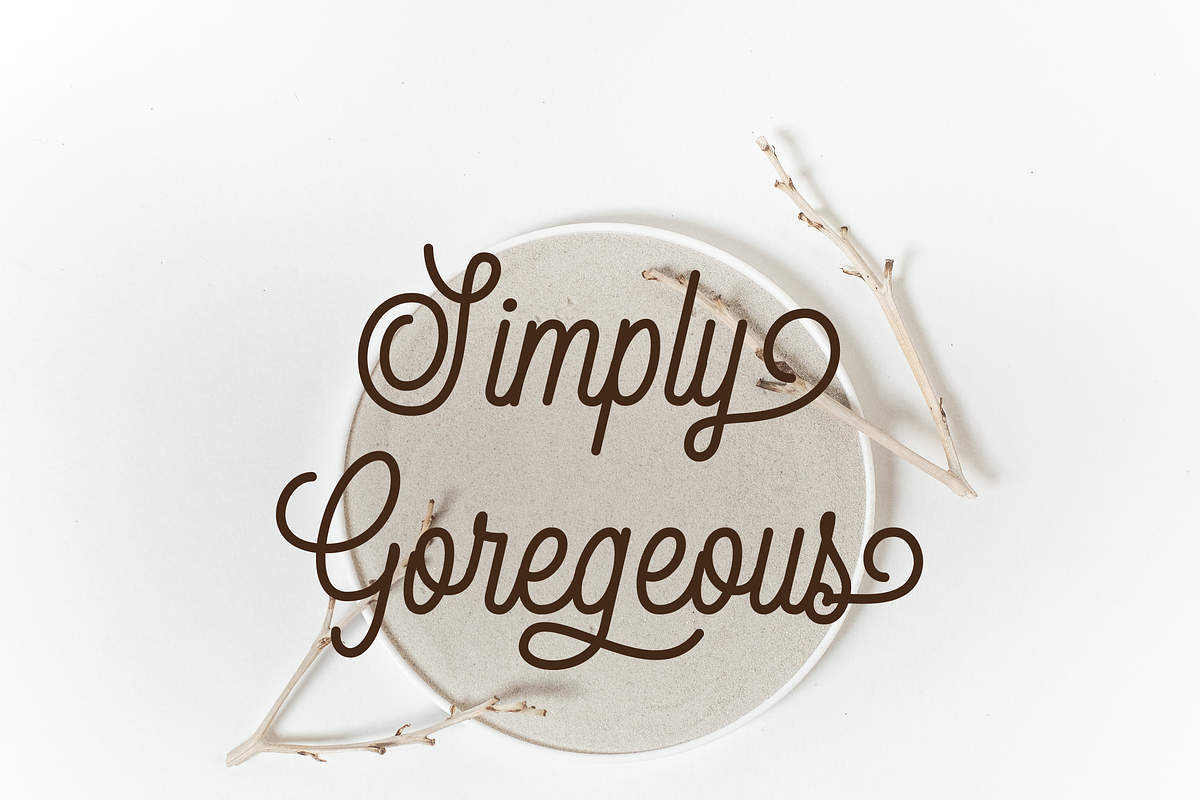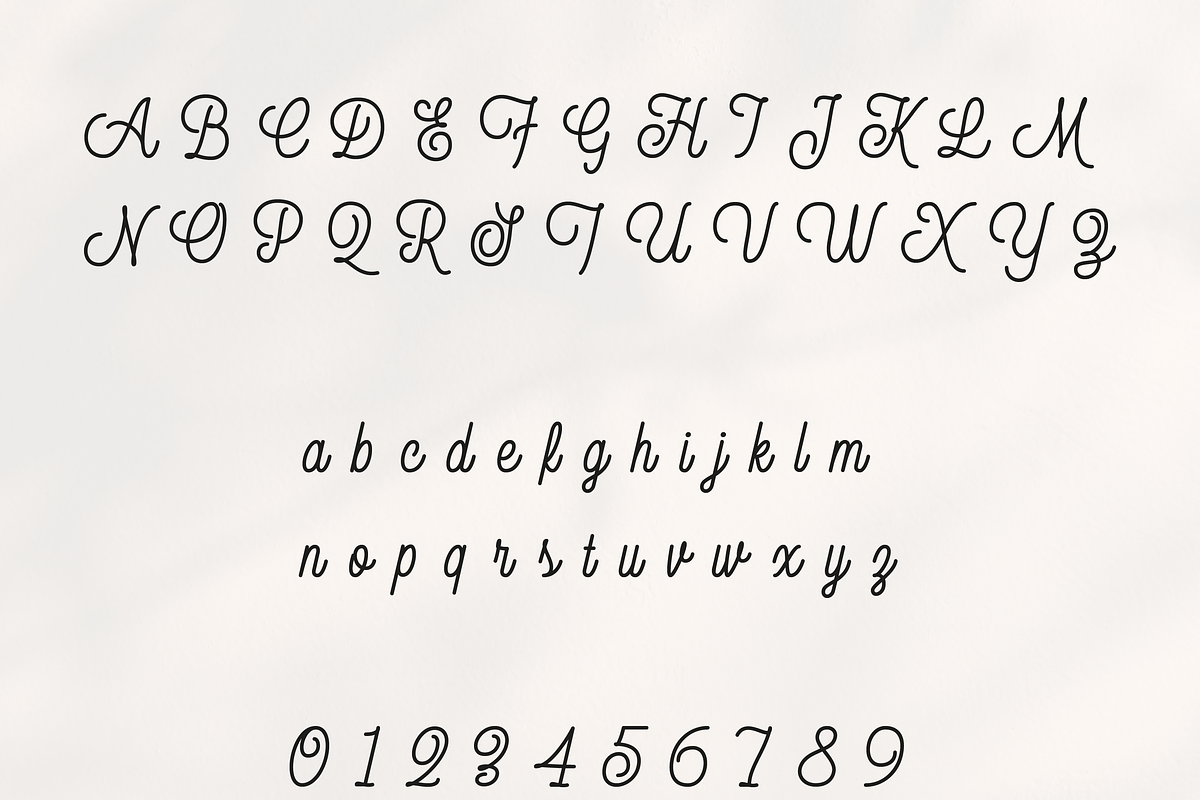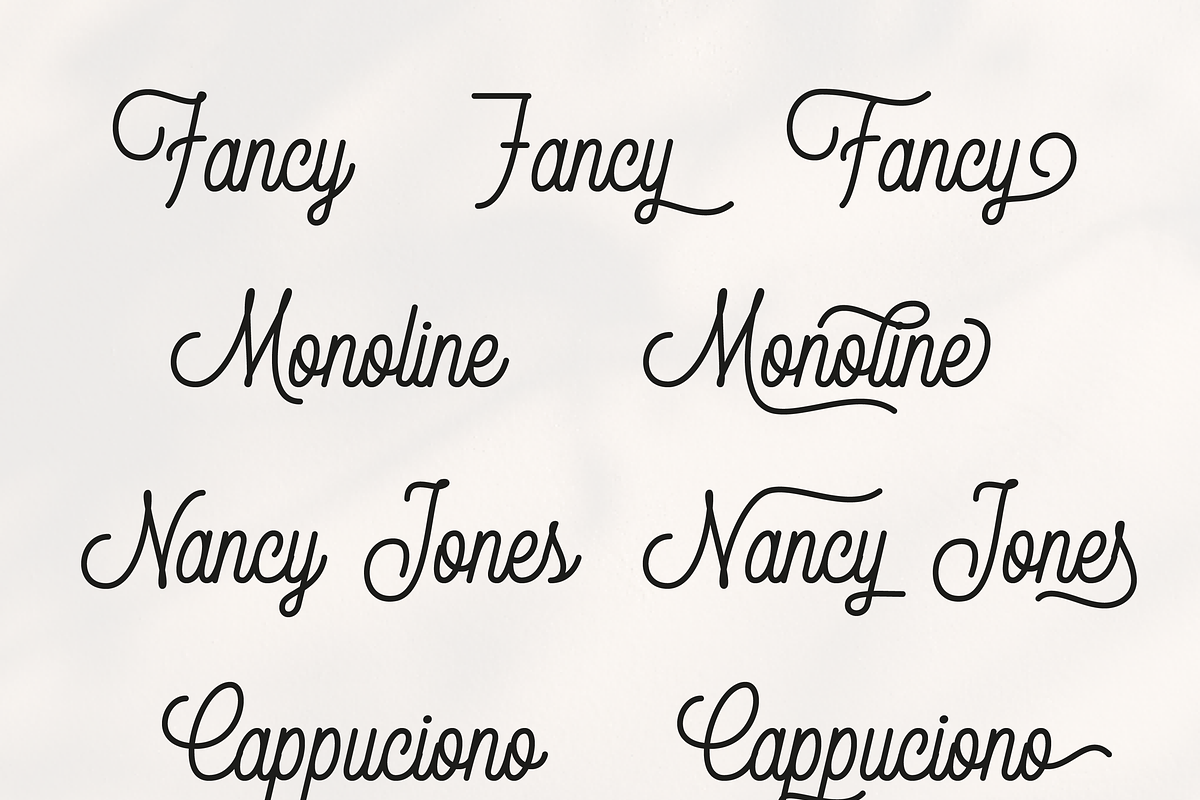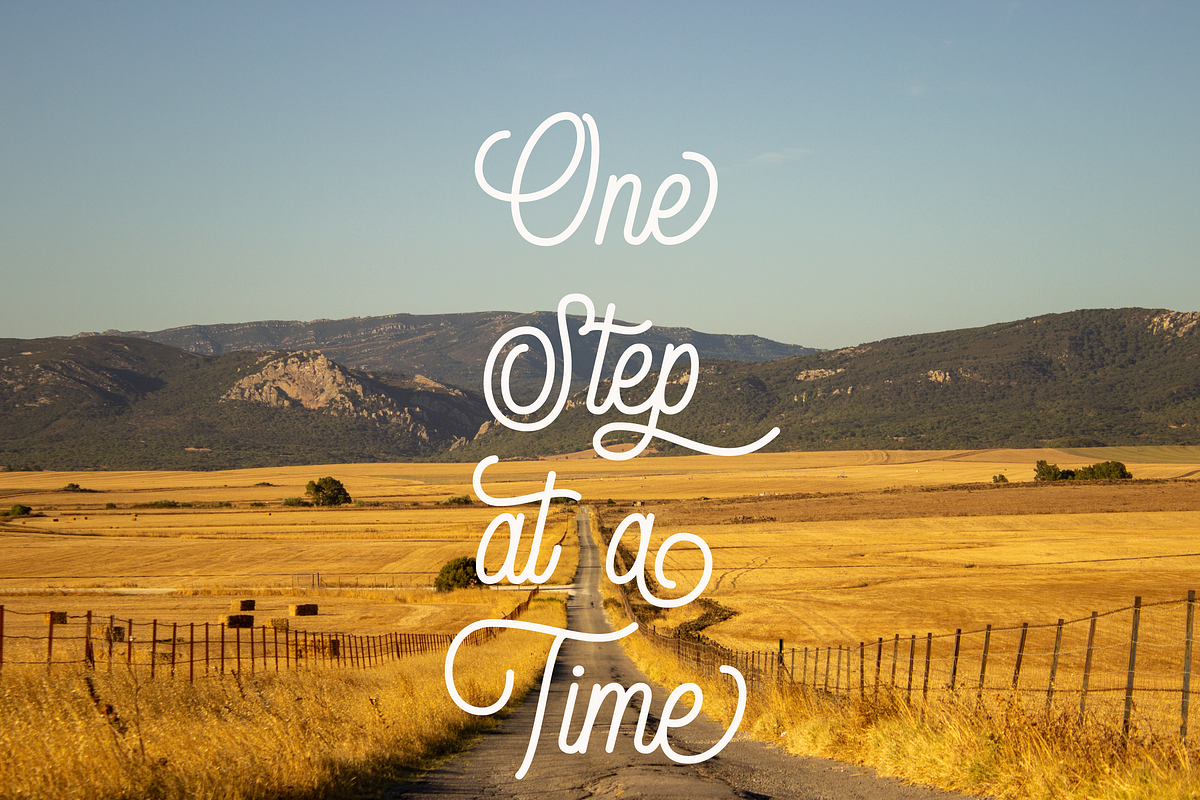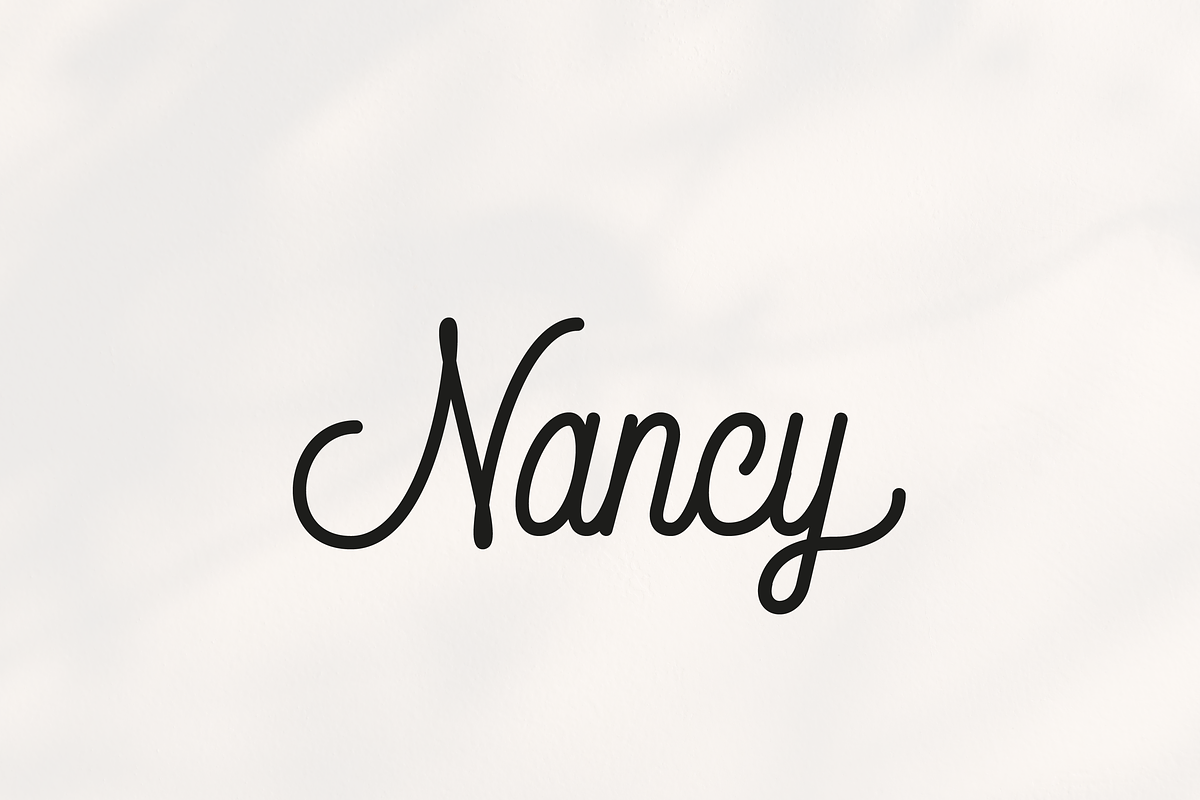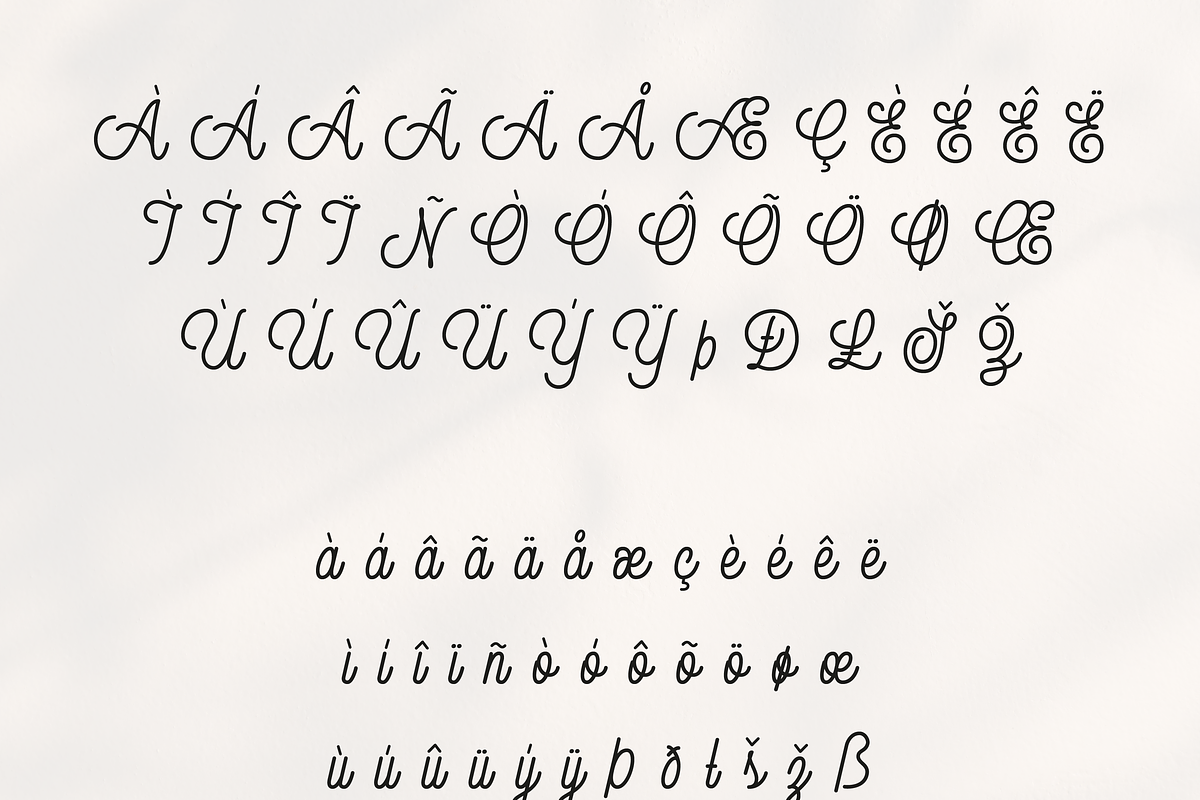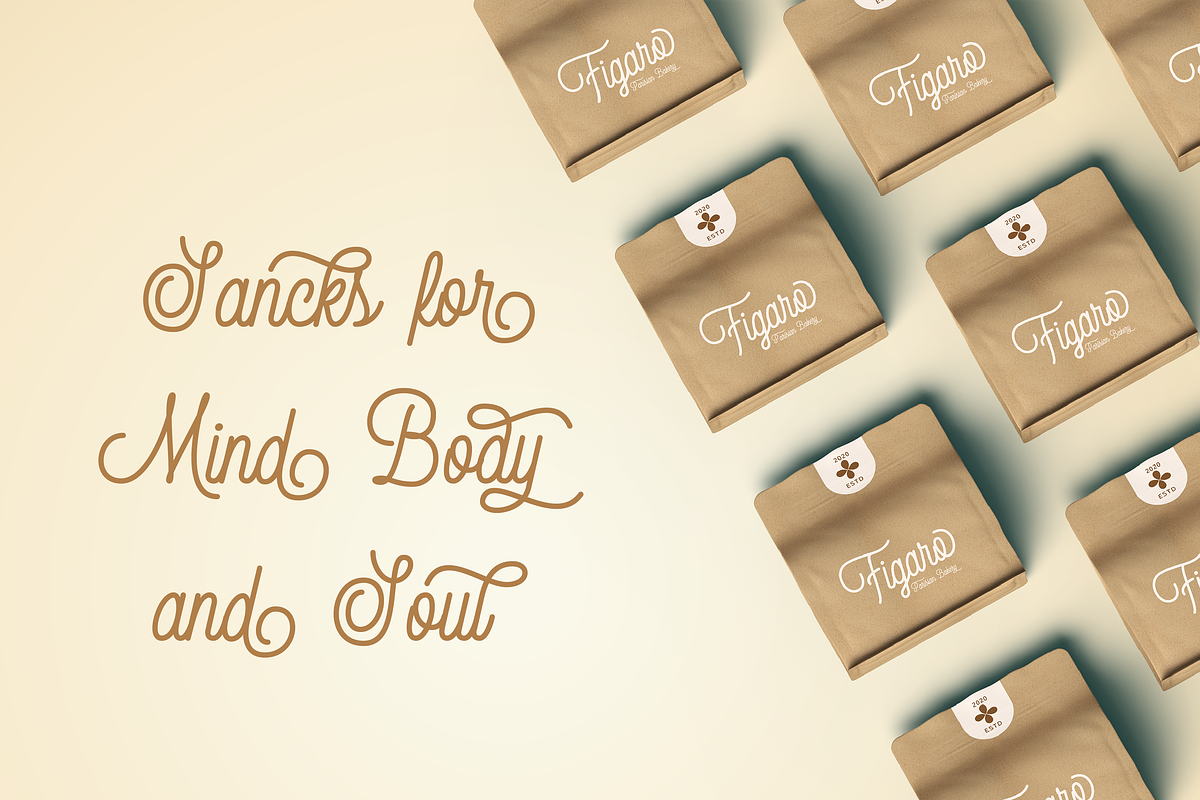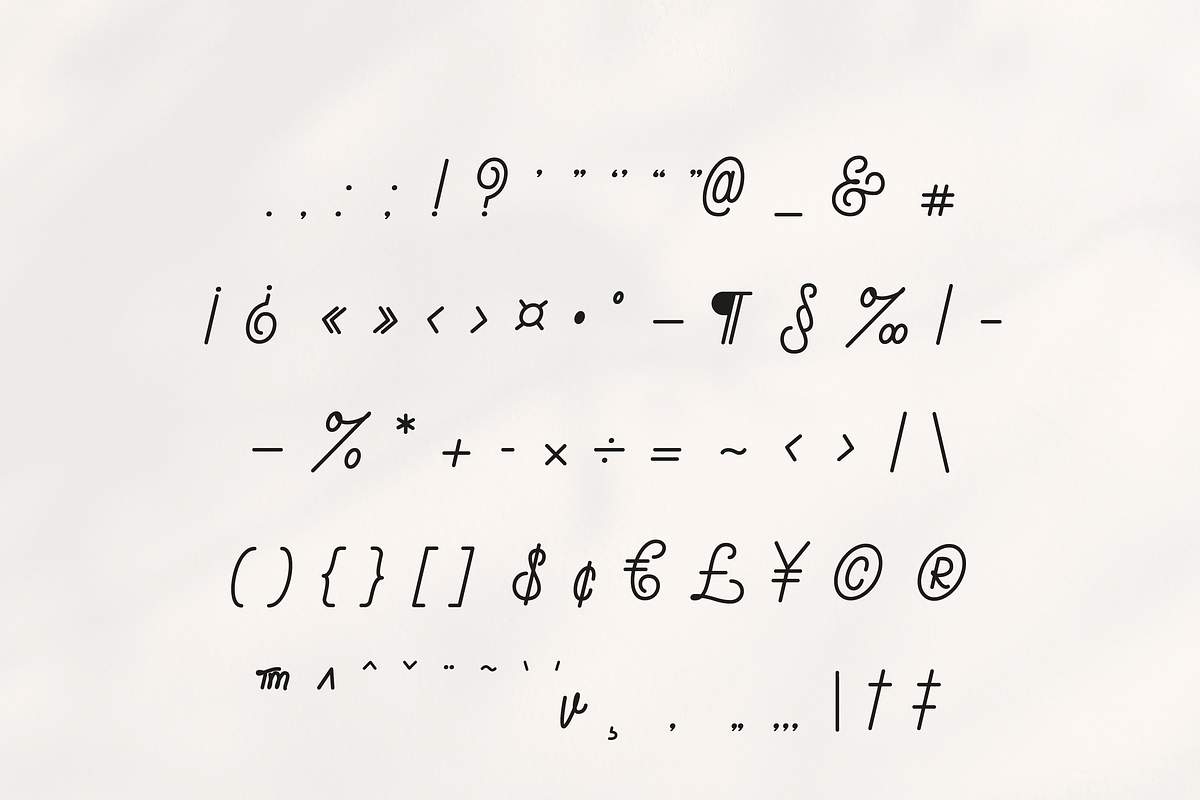
Nancy – Charming Monoline Script Font
Nancy is a versatile monoline handwriting script that combines simplicity with charm. Ideal for creative projects such as Cricut crafting, SVG designs, Procreate artwork, signage, apparel, mug graphics, and invitations, this font brings a warm, personal touch to your designs.
• Clean Monoline Design – Smooth, even strokes provide a modern, approachable aesthetic. • Alternate Characters – Select letters offer stylistic variations accessible via OpenType or character panels. • Creative Compatibility – Perfect for use in crafting tools, graphic design apps, and digital artwork.
Whether you're designing for craft projects, branding, or custom goods, Nancy offers a friendly and expressive hand-lettered style that's both functional and full of personality.